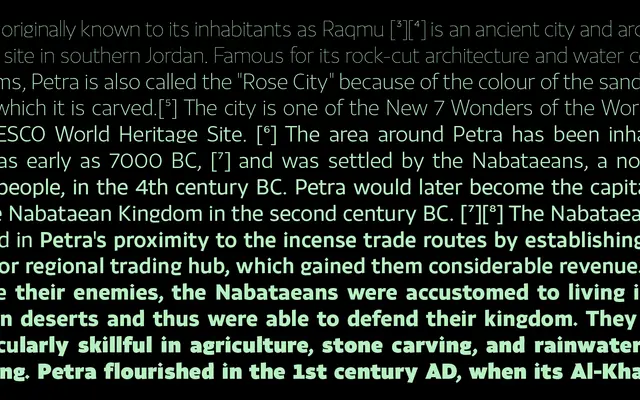
Mayson
Zetafonts · Francesco Canovaro · 2023
A humanist sans by Francesco Canovaro that takes Arabic flat-nib calligraphy as a structural reference for its Latin letterforms, resulting in sharp nib angles and fluid, open shapes across seven weights.
Designed as an experiment in cross-script calligraphic influence, Mayson adapts elements of Arabic script tradition, particularly sharp nib-rotation angles and fluid stroke rhythm, into a monolinear Latin design. The family spans seven weights from Thin to Extrabold, each with a matching italic, plus two variable font axes and a companion Arabic subfamily. Its 916 glyphs cover Latin, Greek and Cyrillic across 214 languages, with OpenType features including oldstyle figures, stylistic sets and fractions.
Monolinear, low-contrast strokes with open humanist shapes drawn from both Latin calligraphic tradition and Arabic flat-nib calligraphy, placing it firmly in the humanist sans-serif category.